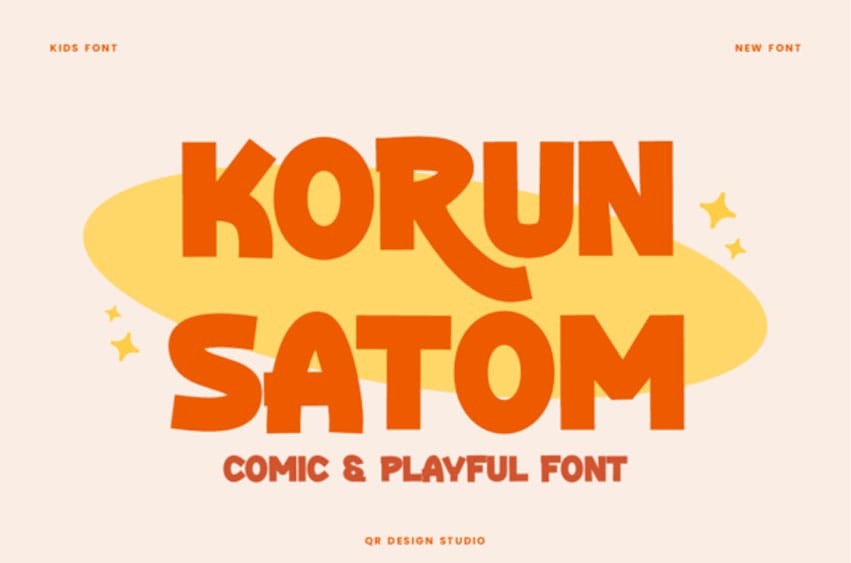
Korun Satom Font is a casual display font that blends modern simplicity with a playful, approachable vibe. Featuring clean shapes, soft edges, and well-balanced letterforms, it captures the charm of relaxed design while maintaining clarity and style.
Ideal for posters, branding, packaging, and social media graphics, it adds a fresh and friendly touch to any project. With its versatile character and eye-catching appeal, this font delivers both readability and personality.